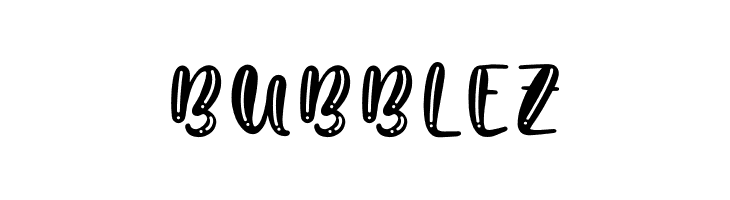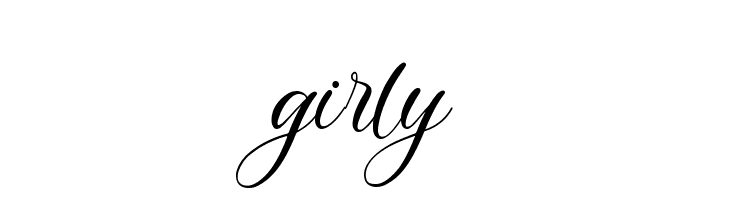
A bold, geometric font with high contrast and a modern, decorative style.
An elegant, cursive font with flowing, intricate designs and graceful loops.
A bold, classic serif font with elegant and pronounced strokes.
A playful, bold handwritten font with a bubbly, rounded appearance.
A bold, expressive script font with dynamic strokes and a handcrafted feel.
A dynamic and flowing script font with elegant curves and smooth strokes.
A flowing, elegant script font with expressive cursive strokes.
A sophisticated serif font with elegant, elongated strokes and refined presence.
A dynamic and expressive script font with fluid, flowing letterforms and medium contrast.
A bold, modern font with a unique cut-out style and geometric precision.